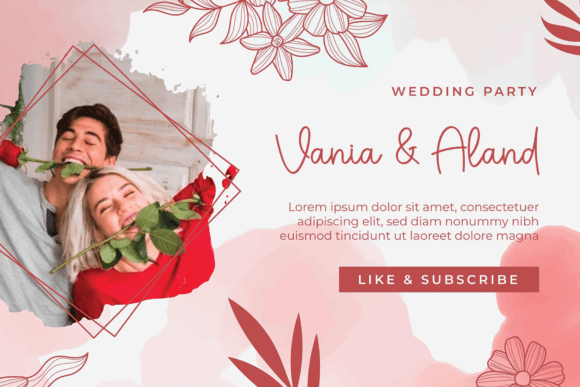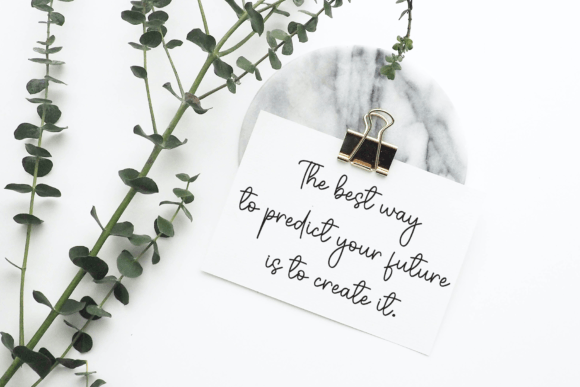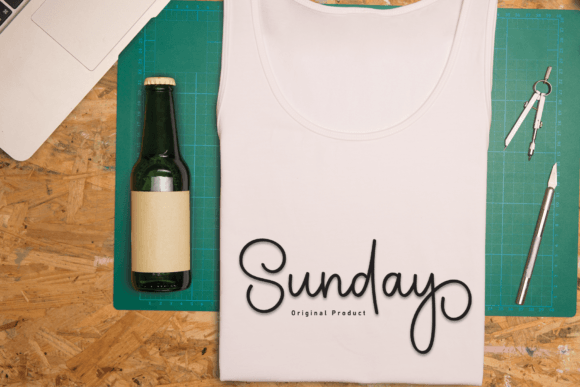
Introduction to Pretty Font
β€œPretty” is a charming handwritten font that looks like someone wrote it with care.
β€œPretty” is a charming handwritten font that looks like someone wrote it with care. It has smooth, flowing letters that give a warm and friendly feel, perfect for adding a personal touch to your proje
Key Features of Pretty Font